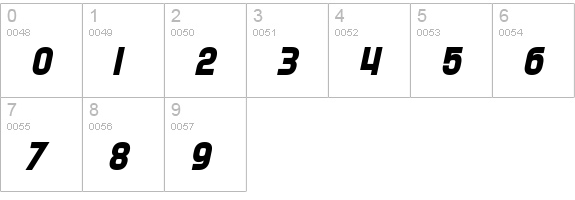
SF Speedwaystar Bold Oblique Font Details
SF Speedwaystar Bold Oblique is a strong, high-contrast, italic variant in the SF typeface family \xE2\x80\x94 well suited to headlines, attention-grabbing titles, and strong calls-to-action.
SF Speedwaystar Bold Oblique font is a stunning typeface that perfectly combines boldness and elegance. With its sleek and dynamic design, this font is sure to make a powerful impact in any design project. The bold oblique style adds a touch of modernity and sophistication, making it an excellent choice for headlines, logos, posters, and more. What sets SF Speedwaystar Bold Oblique font apart is not only its visually appealing appearance but also the fact that it is freely available to download at FontsMarket.com. This means that designers and enthusiasts alike can enjoy the beauty and versatility of this font without any cost. The characters of SF Speedwaystar Bold Oblique font are meticulously crafted, resulting in smooth curves and clean lines that add a sense of professionalism to any design. The bold weight ensures that your message stands out and grabs the attention of your audience. Whether you are working on a branding project, creating eye-catching advertisements, or designing a website, the SF Speedwaystar Bold Oblique font will give your work the extra edge it needs. Its versatility allows it to be used in a wide range of design styles, from futuristic and high-tech to bold and powerful. With SF Speedwaystar Bold Oblique font, you can effortlessly create impactful designs that leave a lasting impression. So why wait? Download this impressive font for free at FontsMarket.com and take your designs to the next level.